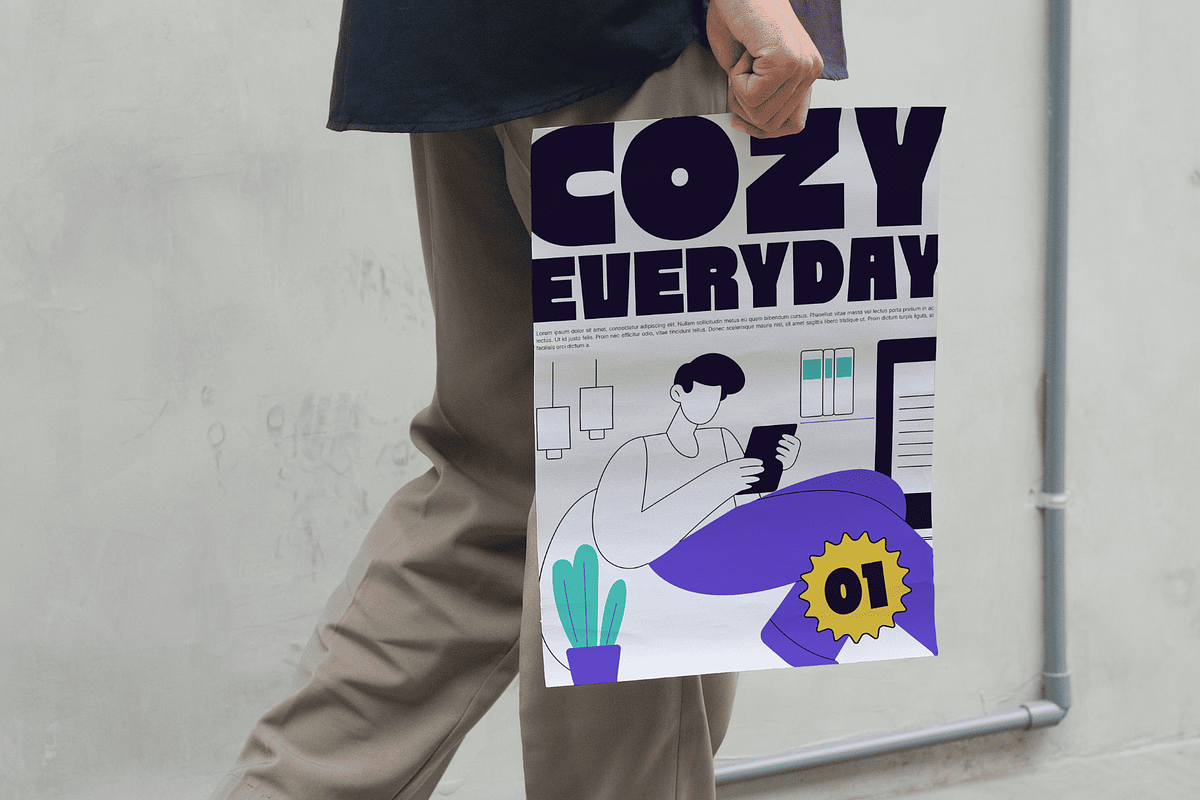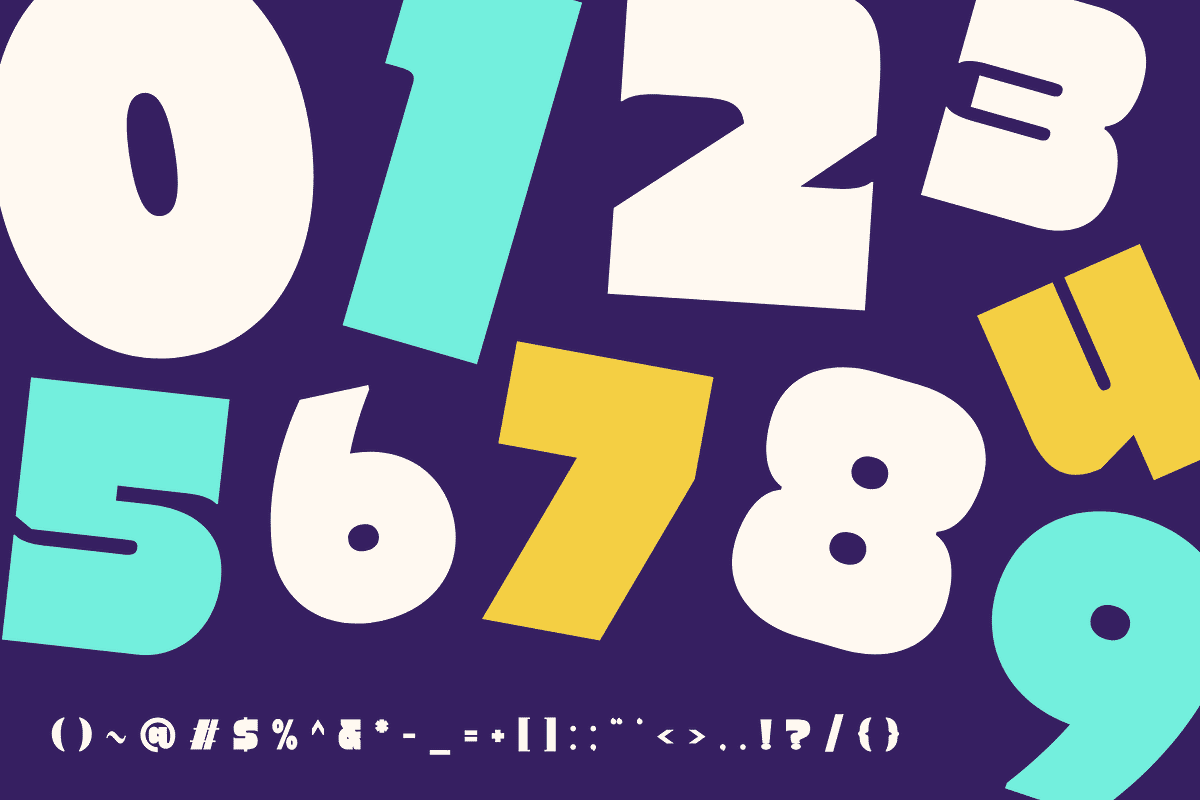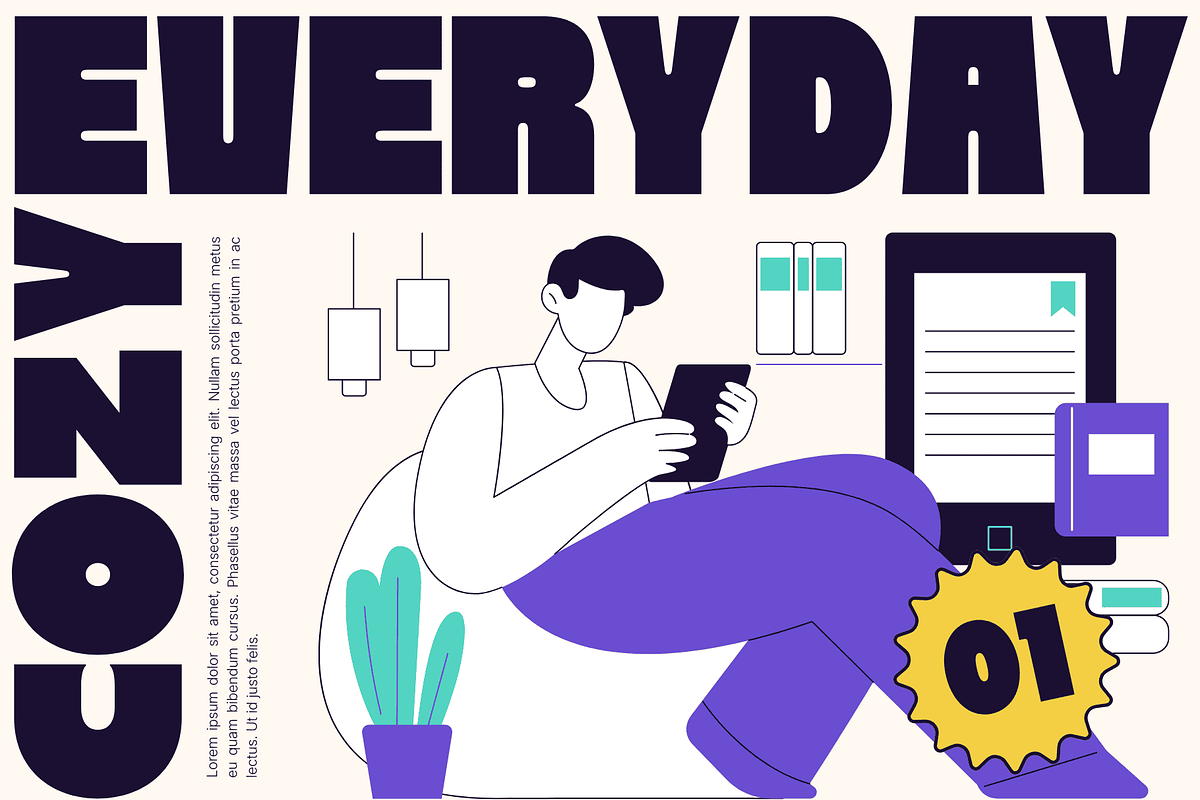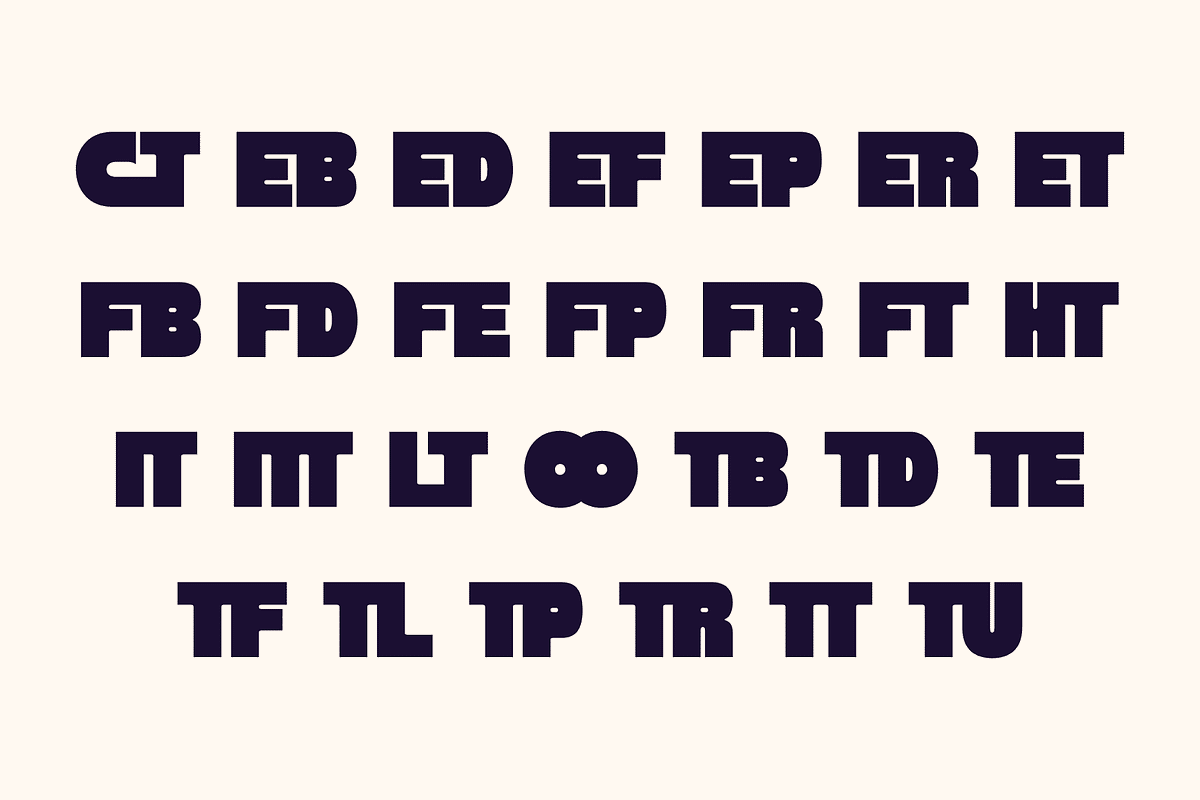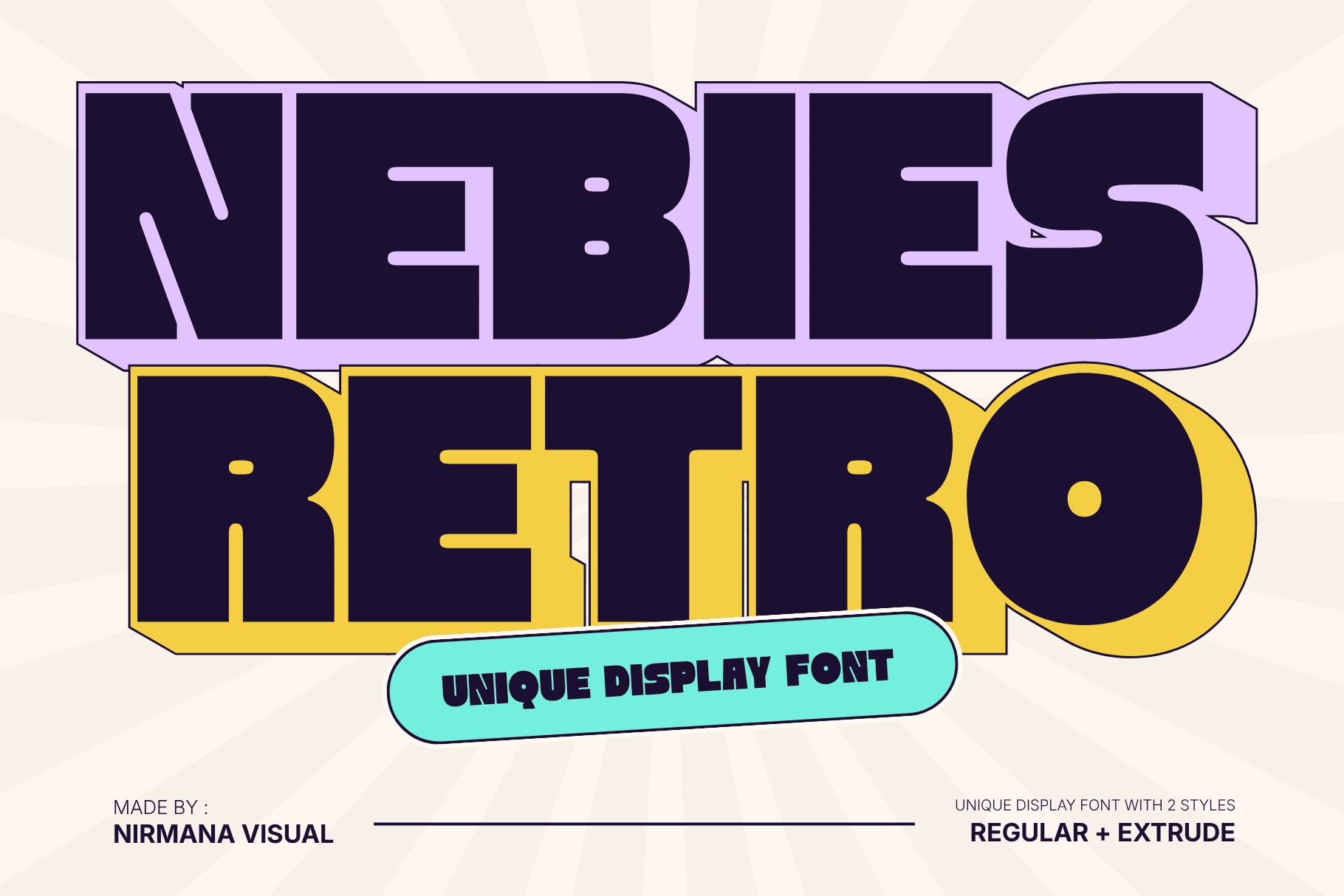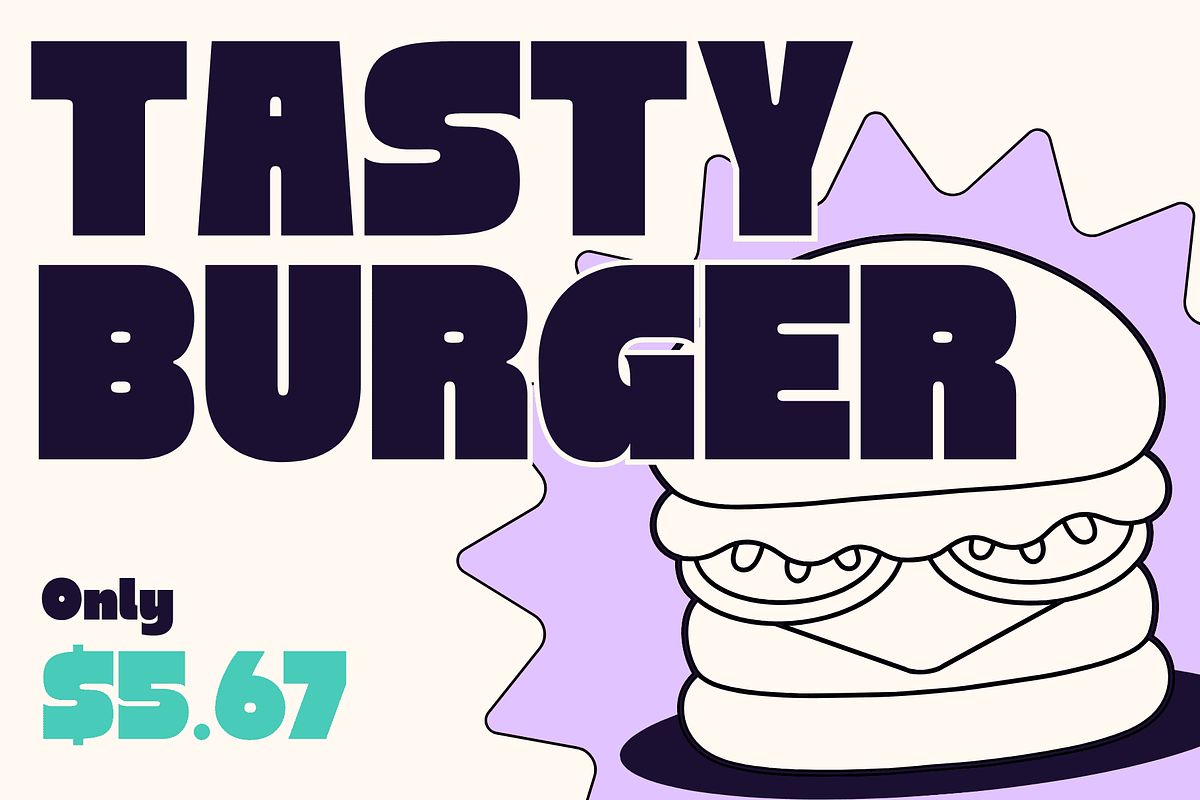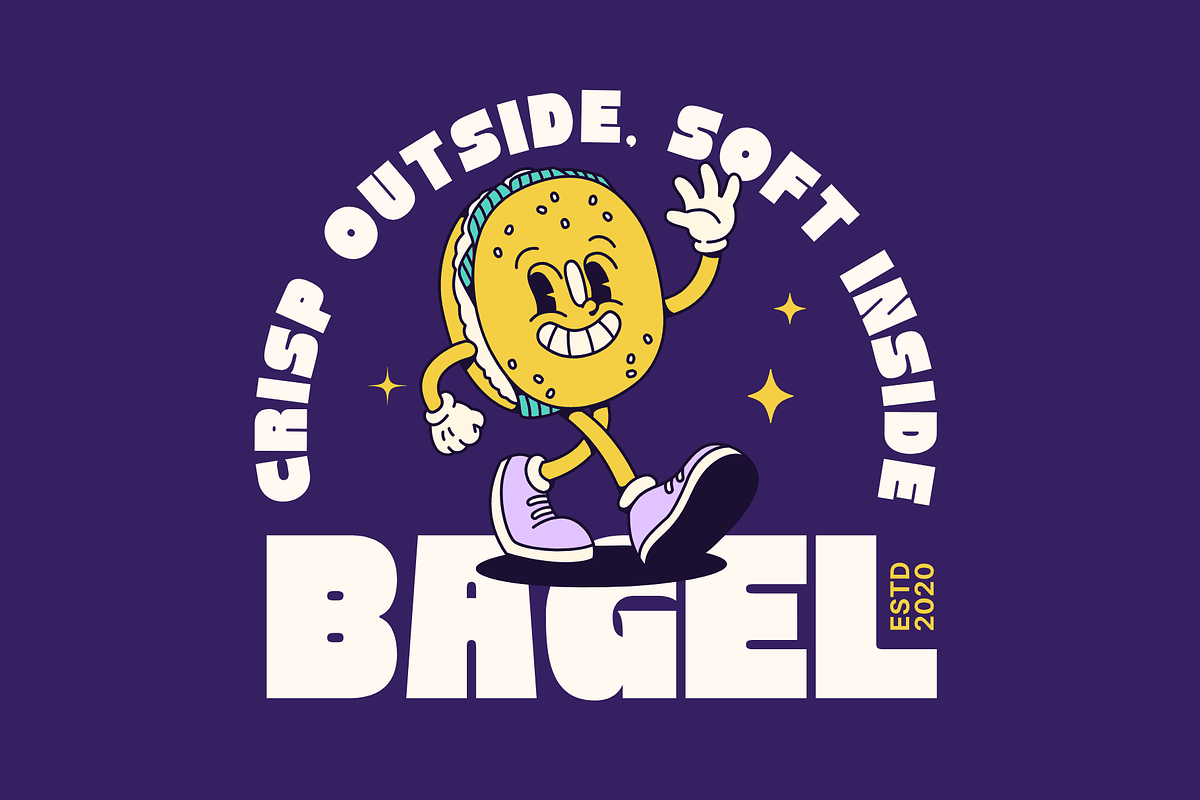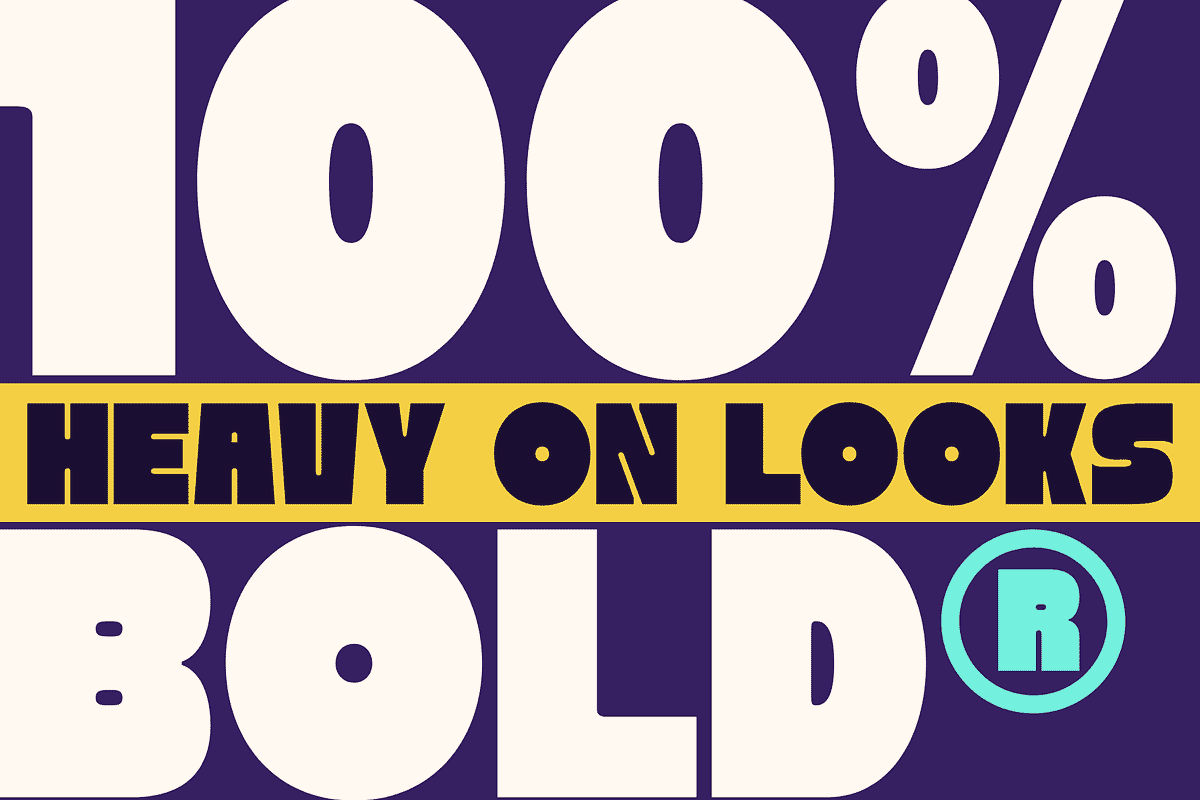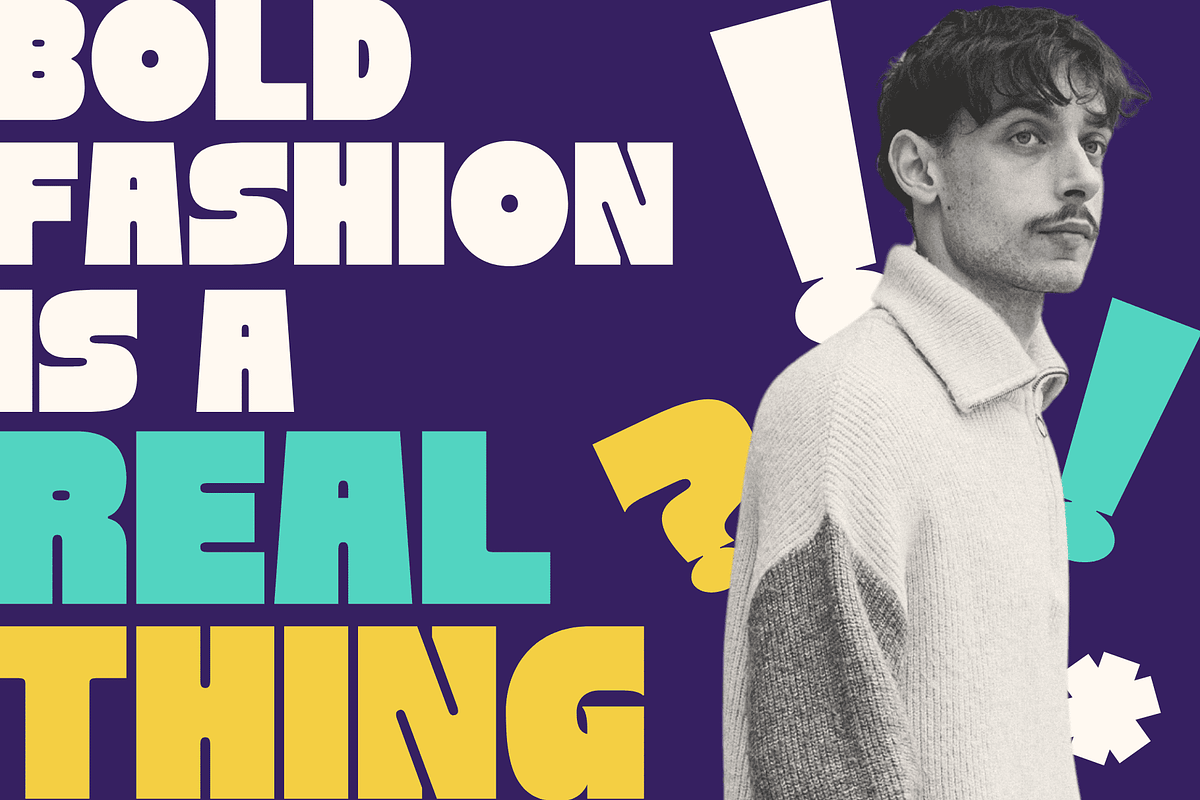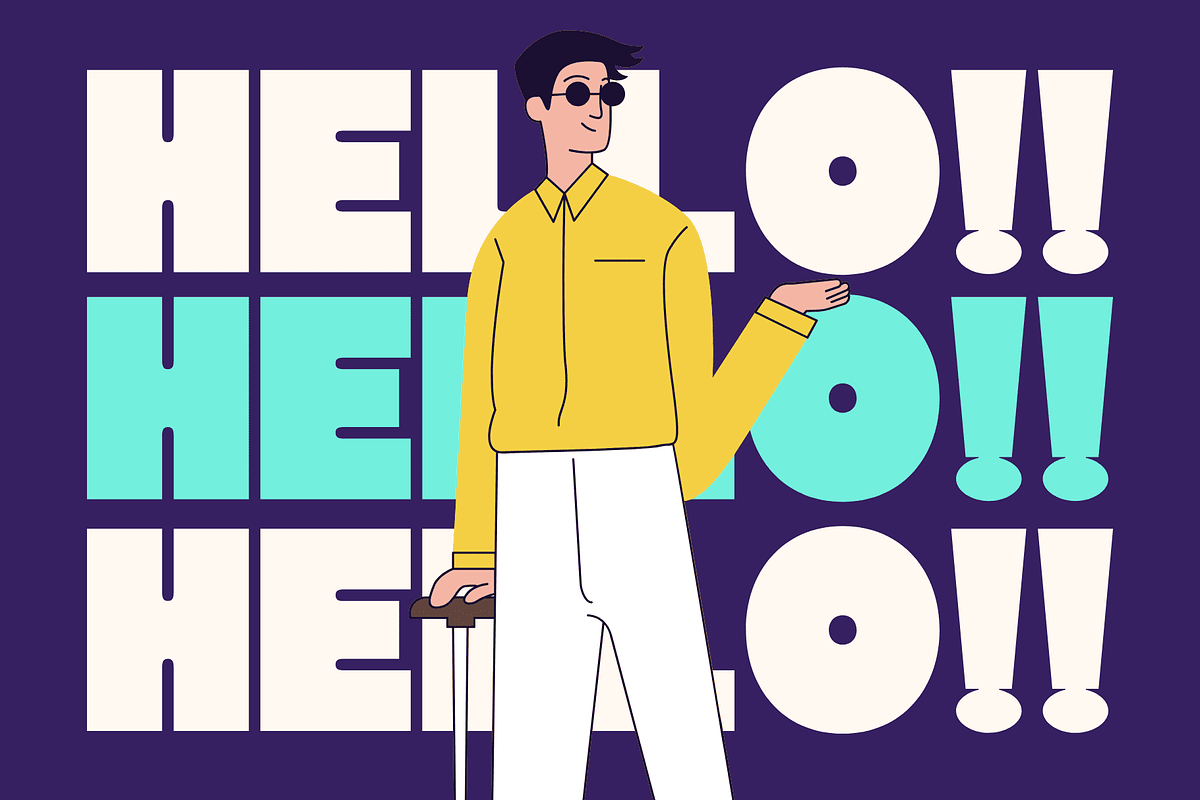
Nebies Retro - Bold Extrude Font
Nebies Retro - Bold Extrude Food Font
Nebies Retro is a bold, playful food font designed to bring nostalgic flavor into modern branding. With its chunky letterforms and smooth curves, it captures a vintage vibe that feels both fun and appetizing. The extrude effect adds depth and dimension, making it perfect for eye-catching logos and standout packaging headings. Ideal for snacks, beverages, or dessert brands, Nebies Retro delivers a warm, inviting look that instantly grabs attention and enhances visual identity.